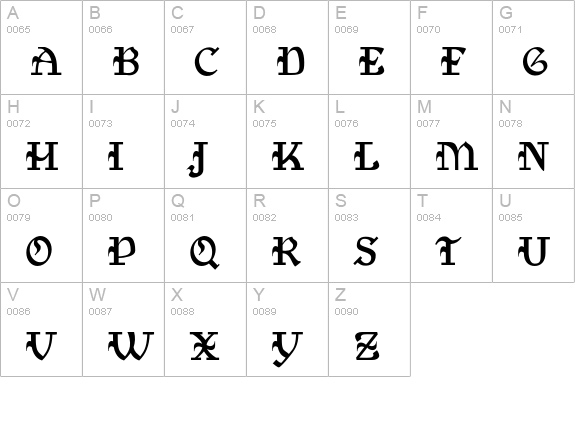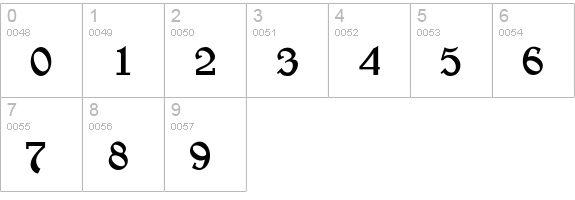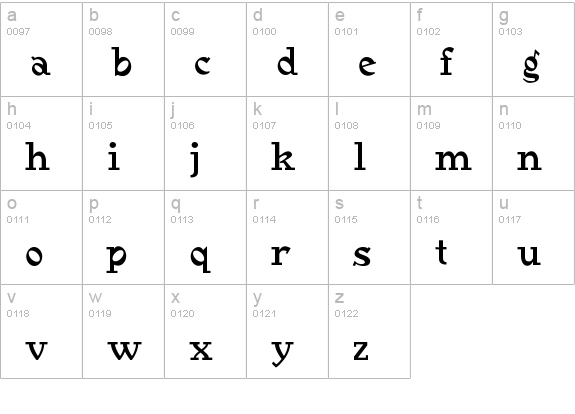
Castle Font Details
Castle font is a visually stunning typeface that exudes elegance and grandeur. With its intricate design and regal appearance, this font is perfect for projects that require a touch of sophistication and luxury. The intricate details of Castle font make it stand out, giving your text a majestic and majestic feel. The best part is, Castle font is free to download at FontsMarket.com, making it accessible to all designers and creators looking to add a touch of royalty to their work. Don't miss out on this exquisite font that will elevate your designs to the next level.